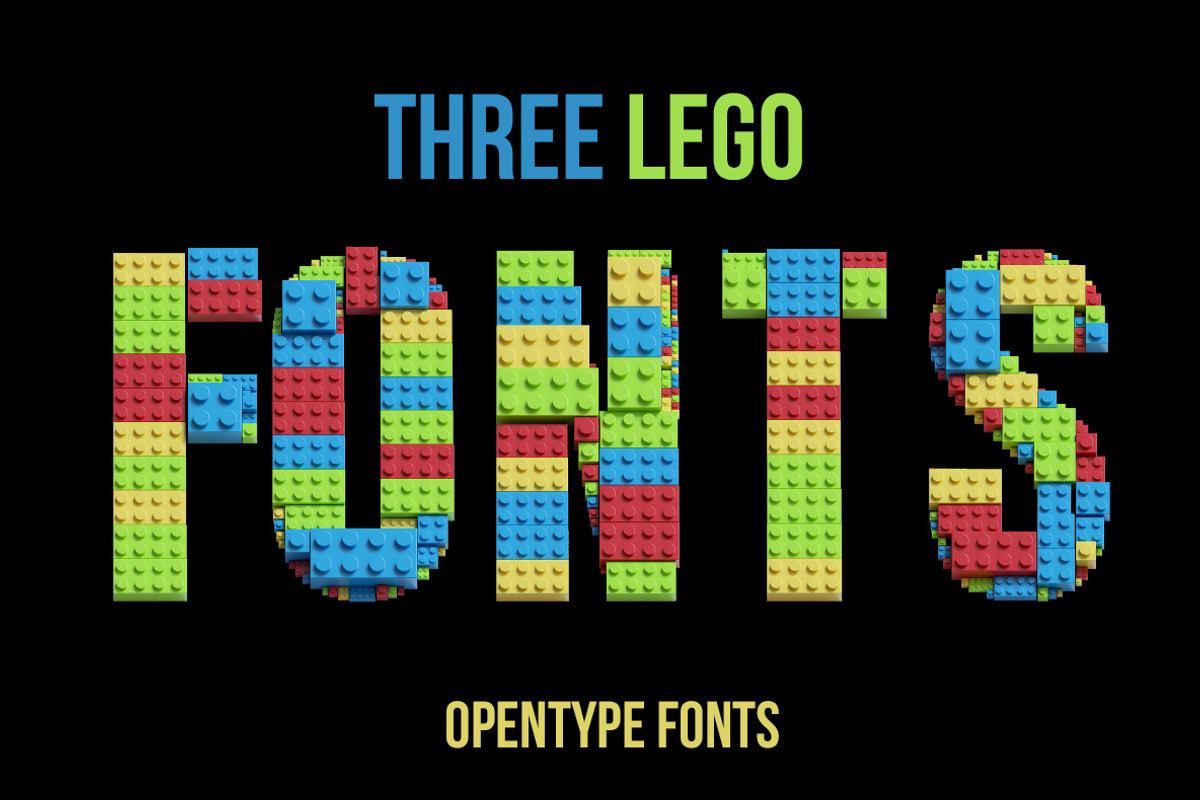
This playful collection is perfect for children's birthday party invitations, toy store branding, educational materials, kids' entertainment venues, family restaurant menus, playground signage, daycare centers, and creative building workshops. Its fun character makes it ideal for projects requiring childhood nostalgia, creativity, and imaginative play aesthetics.
3 Lego Fonts is exciting because it captures the boundless creativity and constructive joy of the world's most beloved building blocks with letterforms that mirror the iconic interlocking brick system. The collection features three distinct styles that evoke different aspects of Lego play - from classic brick construction to modern building techniques. Its authentic toy-inspired design instantly transports viewers to childhood memories of endless creative possibilities and imaginative construction adventures.
The 3 Lego Fonts family includes three complementary typefaces with varying brick-inspired designs, along with decorative elements, building symbols, and playful ornaments. Many versions feature alternate characters that enhance the constructive aesthetic and special glyphs that celebrate the building block theme.
Whether you're creating children's entertainment materials, educational toy campaigns, or family-focused brand identities, 3 Lego Fonts Free Download provides authentic play-inspired creativity with professional versatility. This collection transforms ordinary text into imaginative building experiences that resonate with children, parents, and adults who appreciate the timeless appeal of creative construction. Its distinctive character adds immediate fun and creativity to any project while celebrating the innovative spirit, educational value, and endless possibilities that define the beloved building block experience across generations.